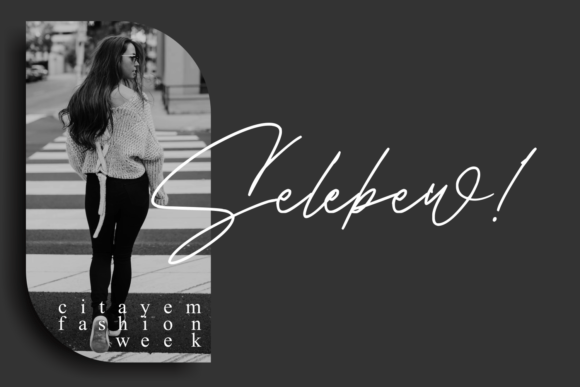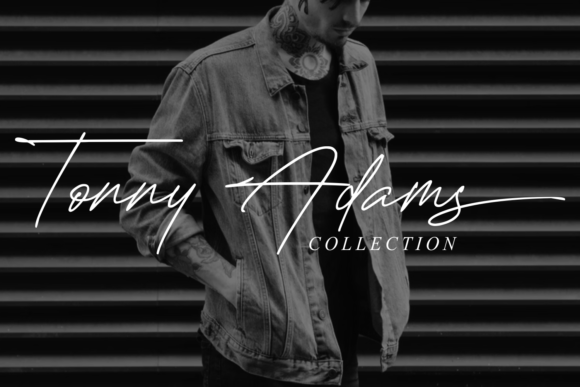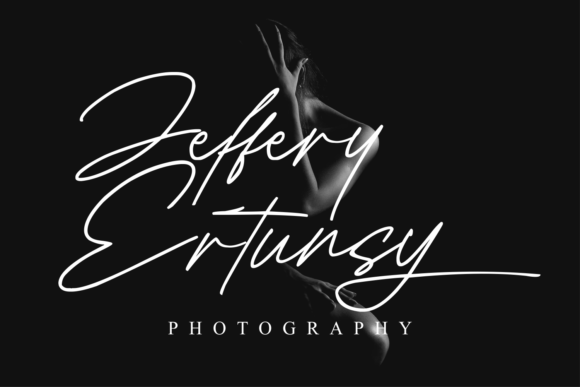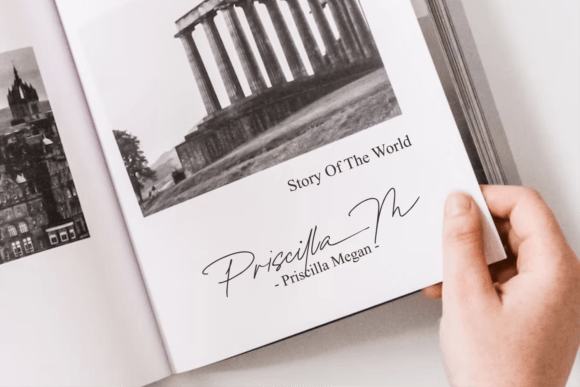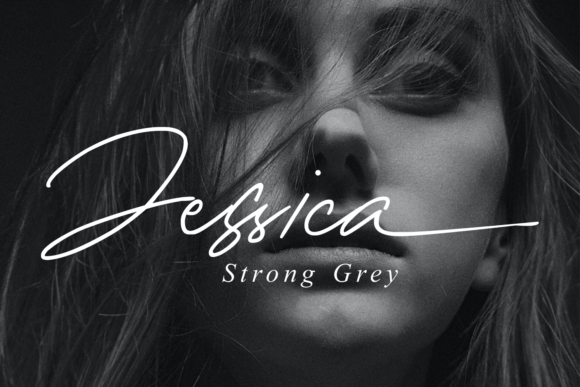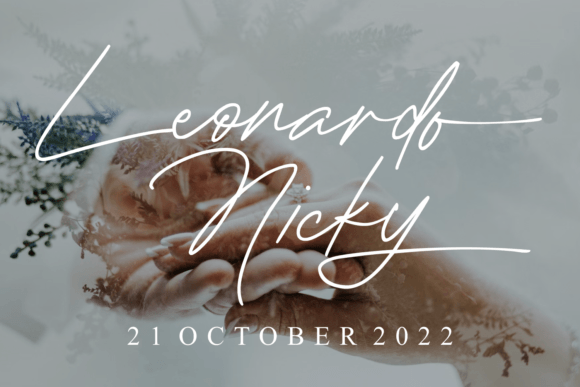
Introducing Angelica Rytes Font: The Perfect Handwritten Font for Romantic Designs
Are you a designer or crafter looking for a unique and romantic font to elevate your designs? Look no further than Angelica Rytes Font! This beautiful handwritten font is perfect for creating signature logos, watermarks, wedding invitations, quotes, and fashion designs that exude a sense of elegance and sophistication.
What is Angelica Rytes Font?
Angelica Rytes is a carefully crafted handwritten font that embodies a romantic feel. Its flowing lines and curves make it an ideal choice for designers who want to add a touch of whimsy and charm to their work. Whether you’re creating a logo, watermark, or invitation, Angelica Rytes Font is sure to impress.
Features of Angelica Rytes Font
So, what makes Angelica Rytes Font so special? Here are just a few of its notable features:
- Full set of handwritten letters: Angelica Rytes includes a complete set of beautiful handwritten upper and lower case letters, ensuring that you have everything you need to create stunning designs.
- Numbers and punctuation marks: In addition to letters, Angelica Rytes Font also includes a range of numbers and assorted punctuation marks, making it a versatile choice for a variety of design projects.
- Bindings: The font also includes bindings, which allow you to create seamless connections between letters and words.
- Realistic handwriting style: One of the standout features of Angelica Rytes Font is its realistic handwriting style. Each lowercase letter includes the final stroke, giving the font a genuine, handwritten feel.
Angelica Rytes Font is a dream come true for designers and crafters who want to create romantic and eye-catching designs. Here are just a few ways you can use this beautiful font:
- Signature logos: Create a stunning signature logo for your photography studio or business using Angelica Rytes Font.
- Wedding invitations: Add a touch of romance to your wedding invitations with this beautiful handwritten font.
- Quotes and typography: Use Angelica Rytes Font to create inspiring quotes, posters, and typography designs that showcase your creativity.
- Fashion designs: Elevate your fashion designs with the elegant and sophisticated feel of Angelica Rytes Font.
- Logos and brand signatures: Create a unique and memorable logo or brand signature that sets your business apart from the rest.
Why Choose Angelica Rytes Font?
With so many fonts available, why choose Angelica Rytes Font? Here are just a few reasons why this font stands out:
- Unique and romantic feel: Angelica Rytes Font has a distinctive romantic feel that’s sure to capture the hearts of your audience.
- High-quality design: The font is carefully crafted with attention to detail, ensuring that it looks beautiful and elegant in any design.
- Versatile: Angelica Rytes Font can be used for a wide range of design projects, from logos and watermarks to wedding invitations and fashion designs.
In conclusion, Angelica Rytes Font is a stunning handwritten font that’s perfect for designers and crafters who want to add a touch of romance and elegance to their designs. With its full set of handwritten letters, numbers, punctuation marks, and bindings, this font has everything you need to create beautiful and eye-catching designs. So why wait? Try Angelica Rytes Font today and take your designs to the next level!